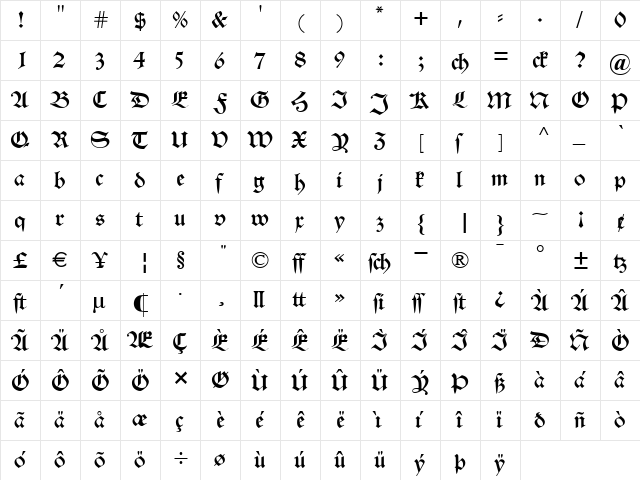
Alte Schwabacher Regular
Design Context for Alte Schwabacher Typeface
Alte Schwabacher takes a measured approach to typography — its balanced proportions and neutral character make it a reliable workhorse for both digital and print work.